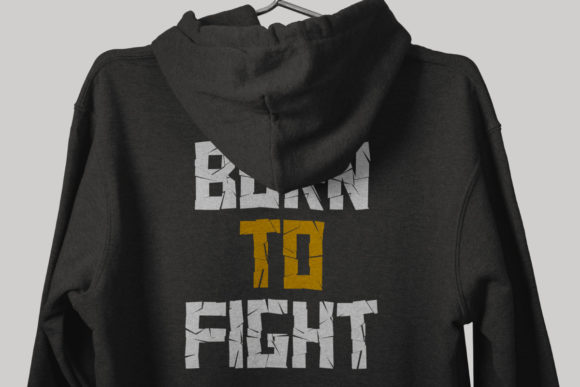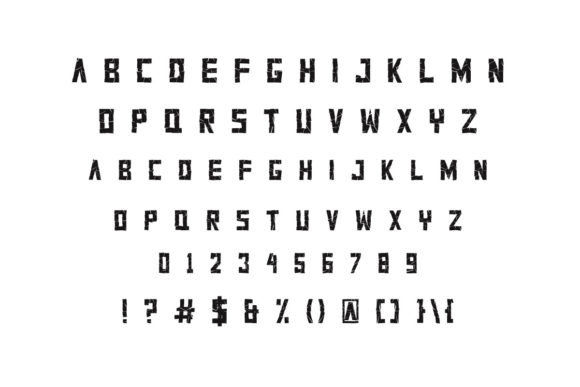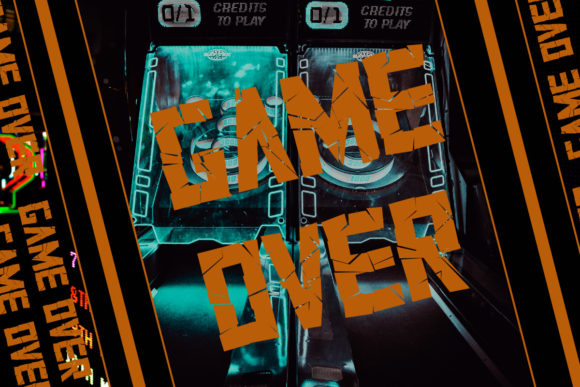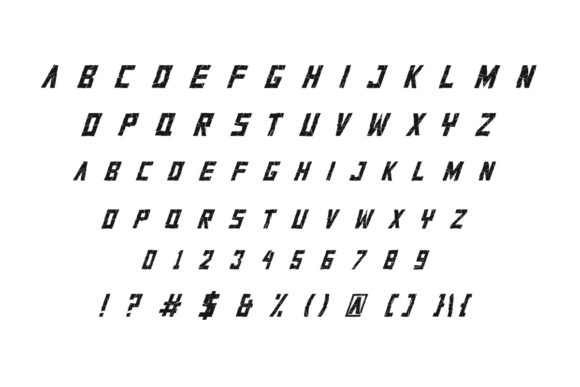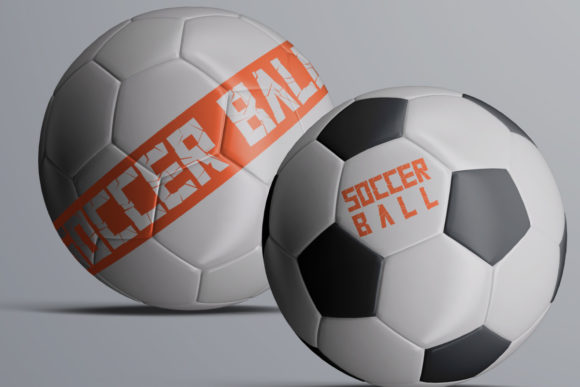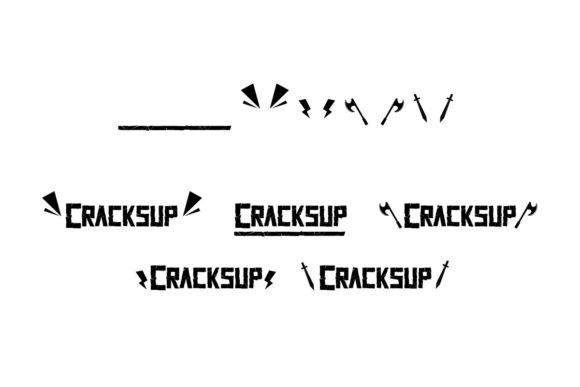
Cracksup Font: Elevate Your Designs with a Cool and Techno-Looking Display Font
Are you tired of using the same old fonts in your designs? Look no further than Cracksup Font, a cool and techno-looking display font that’s sure to take your work to the next level. With its unique and eye-catching style, Cracksup Font is perfect for designers and crafters who want to add a touch of edginess to their projects.
What is Cracksup Font?
Cracksup Font is a display font that’s designed to make a statement. Its techno-inspired style is perfect for creating bold and eye-catching designs that will grab attention. Whether you’re working on a poster, flyer, or print project, Cracksup Font is the perfect choice.
Key Features of Cracksup Font
- Unique and Eye-Catching Style: Cracksup Font has a one-of-a-kind style that’s sure to make your designs stand out.
- Techno-Inspired: The font’s techno-inspired style gives it a cool and edgy vibe that’s perfect for modern designs.
- Highly Versatile: Cracksup Font can be used for a wide range of design projects, from posters and flyers to prints and more.
Why Use Cracksup Font?
There are many reasons why you should consider using Cracksup Font in your designs. Here are just a few:
- Add a Touch of Edginess: Cracksup Font is perfect for designers who want to add a touch of edginess to their work.
- Stand Out from the Crowd: With its unique style, Cracksup Font is sure to make your designs stand out from the crowd.
- Perfect for Modern Designs: The font’s techno-inspired style makes it perfect for modern designs that require a cool and edgy vibe.
- Endless Possibilities: With Cracksup Font, the possibilities are endless. Use it for posters, flyers, prints, and more to create stunning designs.
Tips and Tricks for Using Cracksup Font
Here are some tips and tricks for using Cracksup Font:
- Use it for Headings: Cracksup Font is perfect for headings and titles. Use it to add a touch of edginess to your designs.
- Experiment with Colors: Don’t be afraid to experiment with different colors to find the perfect combination for your design.
- Pair it with Other Fonts: Pair Cracksup Font with other fonts to create a unique and interesting design.
- Use it for Large Text: Cracksup Font is perfect for large text. Use it to create eye-catching designs that will grab attention.
Cracksup Font is a cool and techno-looking display font that’s perfect for designers and crafters who want to add a touch of edginess to their work. With its unique and eye-catching style, Cracksup Font is sure to make your designs stand out from the crowd. Whether you’re working on a poster, flyer, or print project, Cracksup Font is the perfect choice. So why wait? Download Cracksup Font today and explore its endless possibilities.